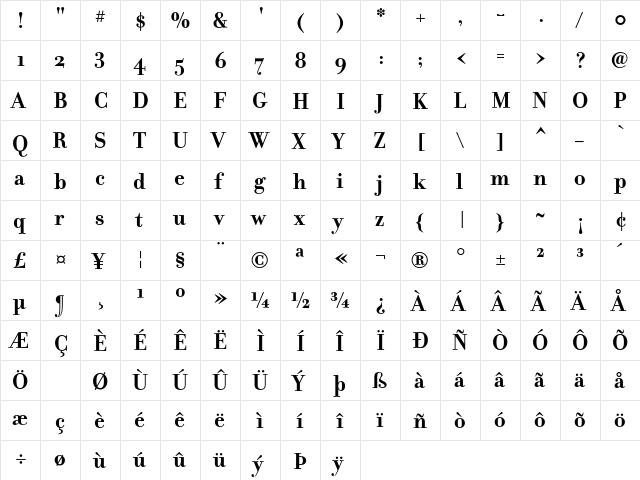
FilosofiaBold Bold Font Preview
FilosofiaBold Bold
FilosofiaBold Bold Font Details
Design Context for FilosofiaBold Typeface
FilosofiaBold takes a measured approach to typography — its balanced proportions and neutral character make it a reliable workhorse for both digital and print work. Its bold stroke weight gives it real presence on the page.